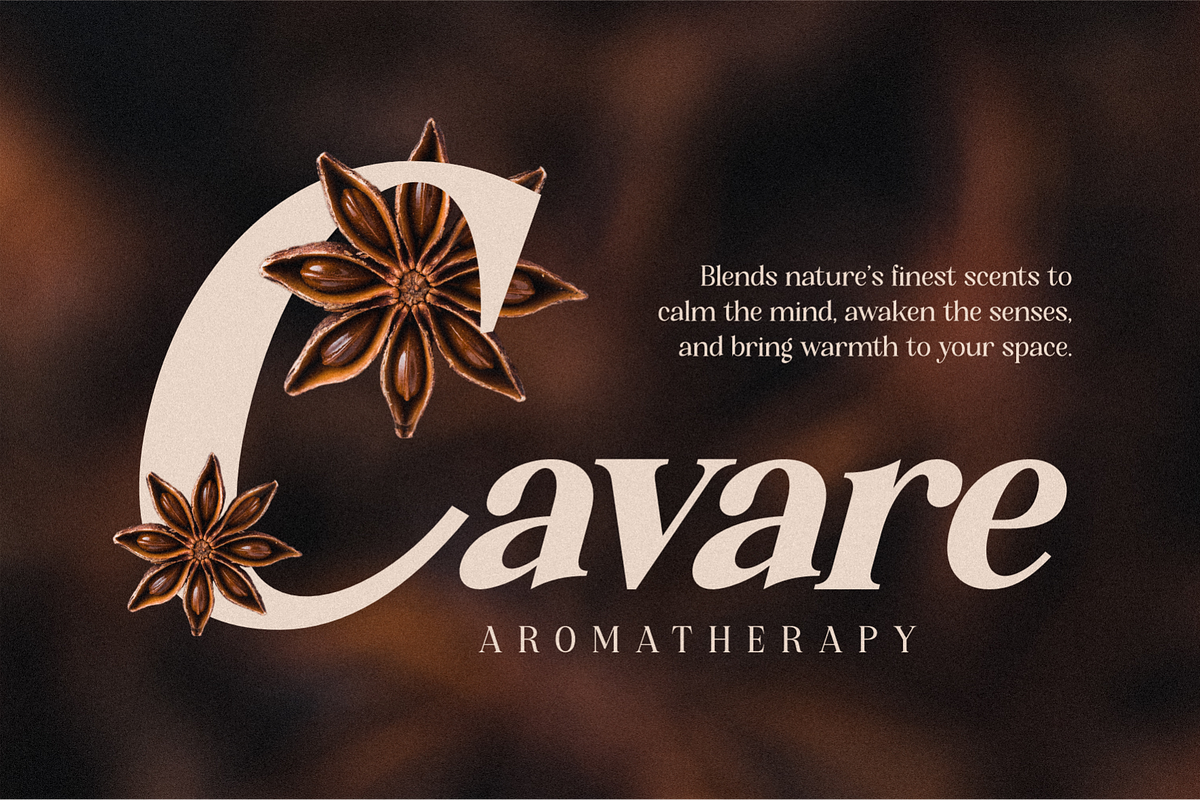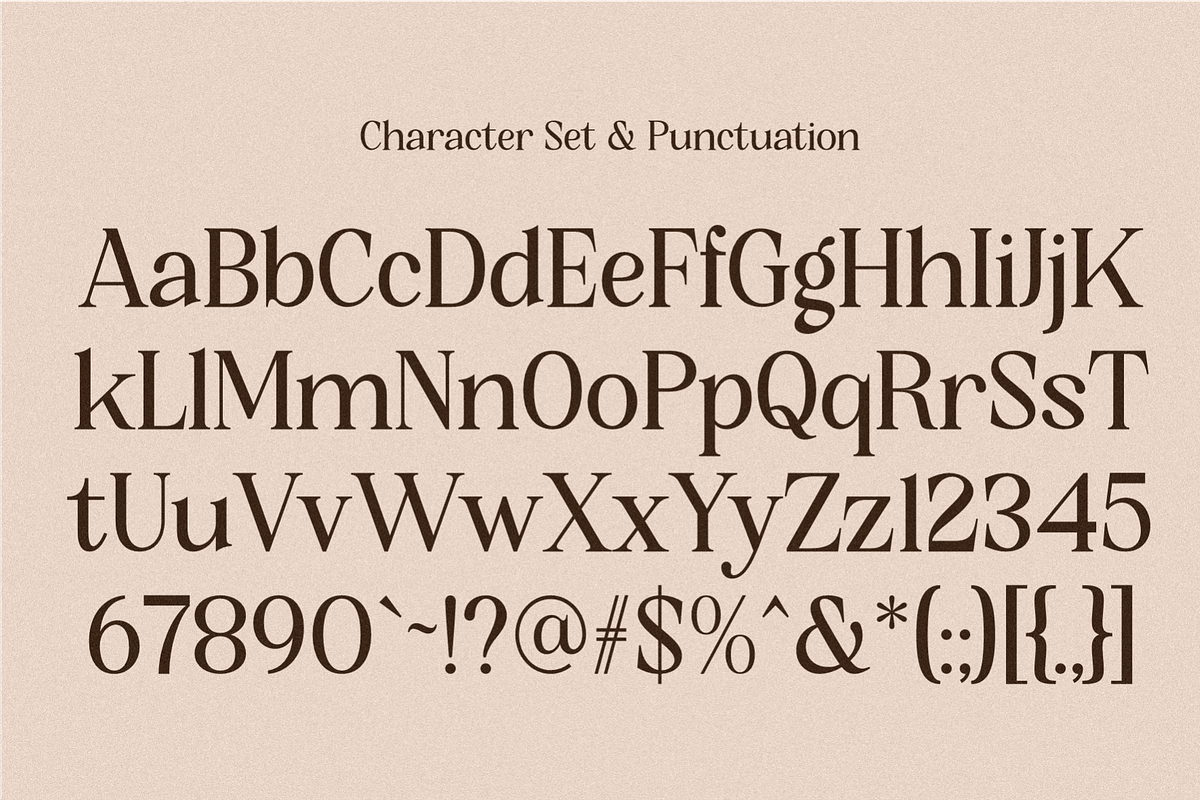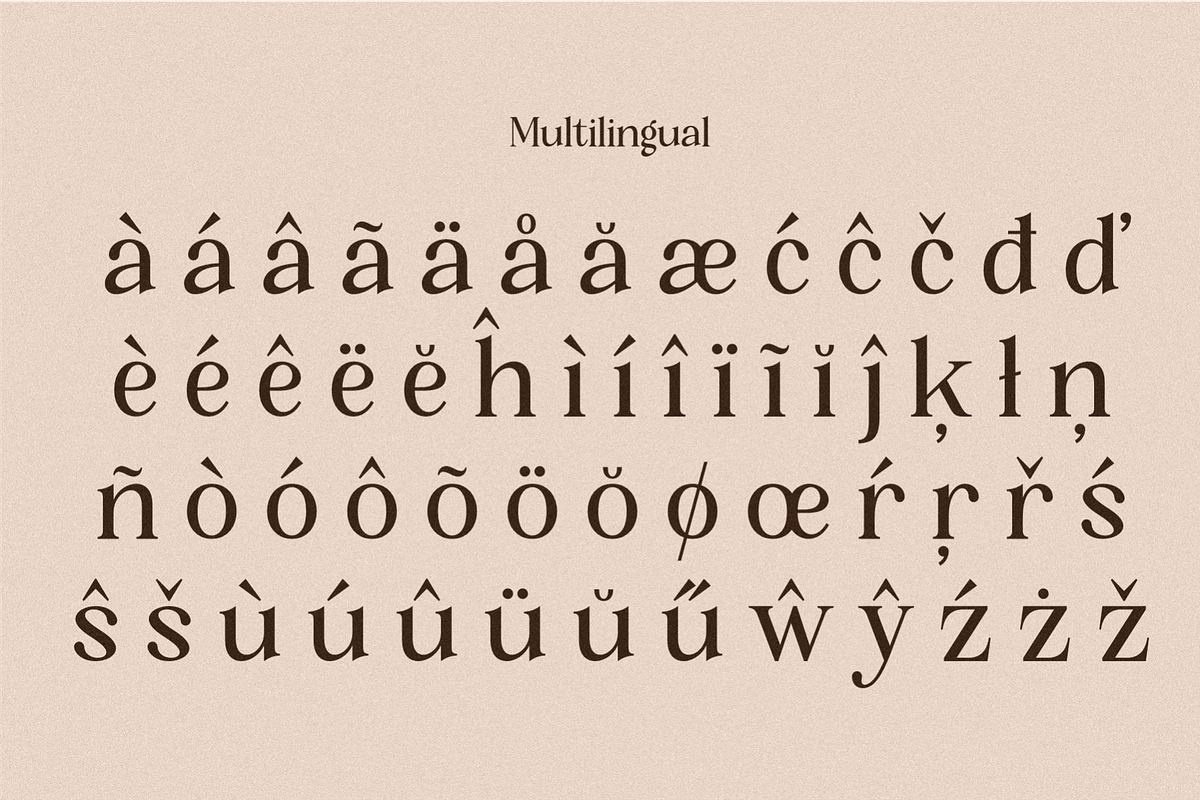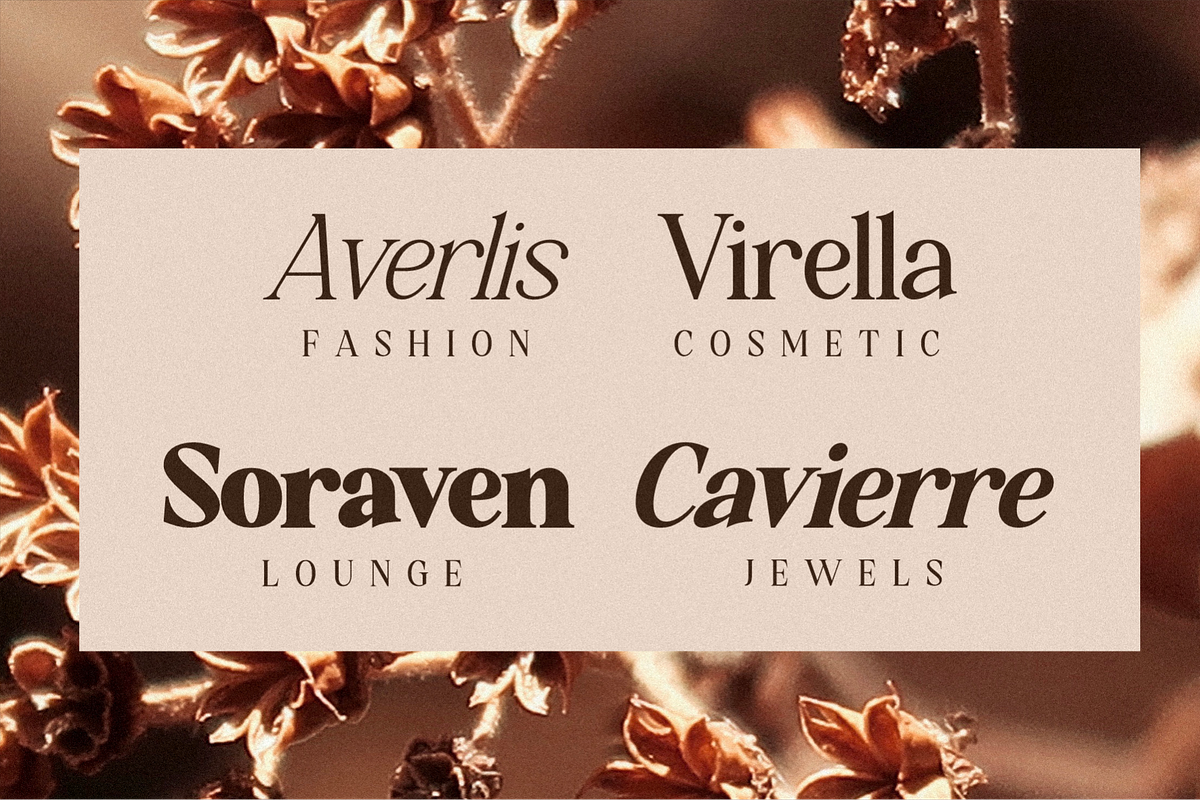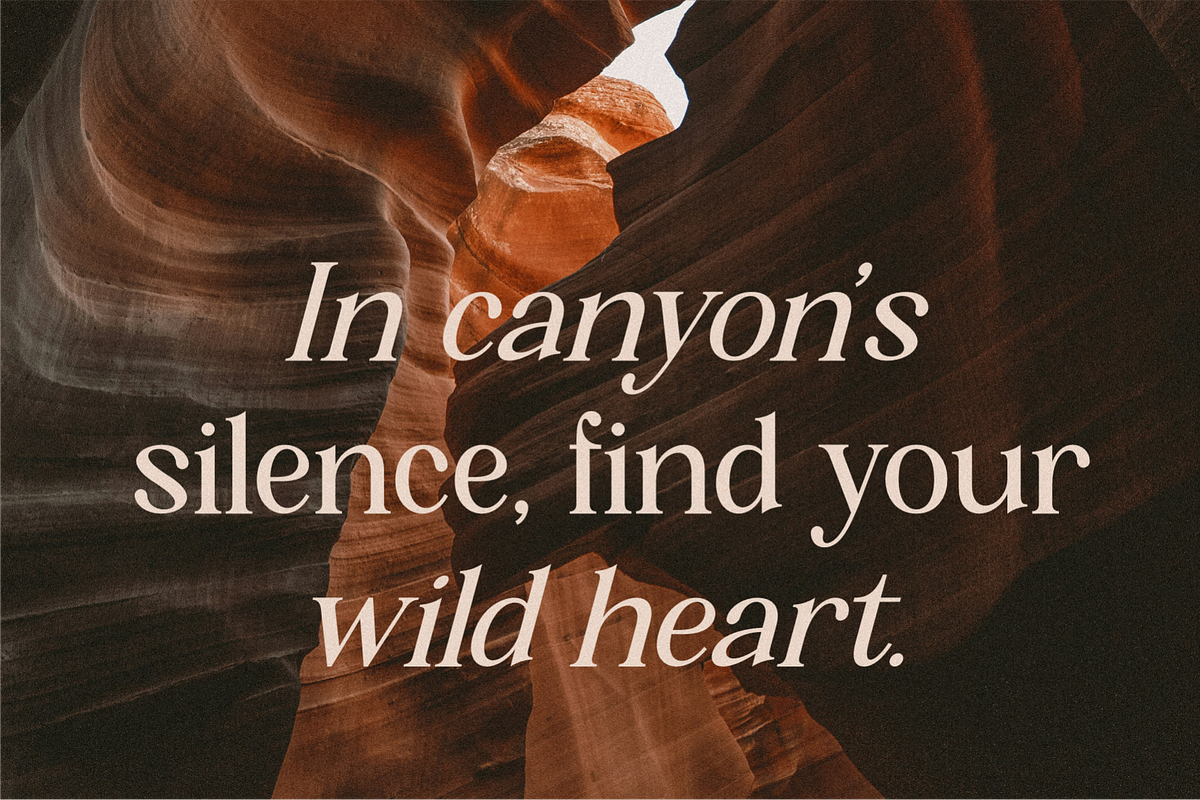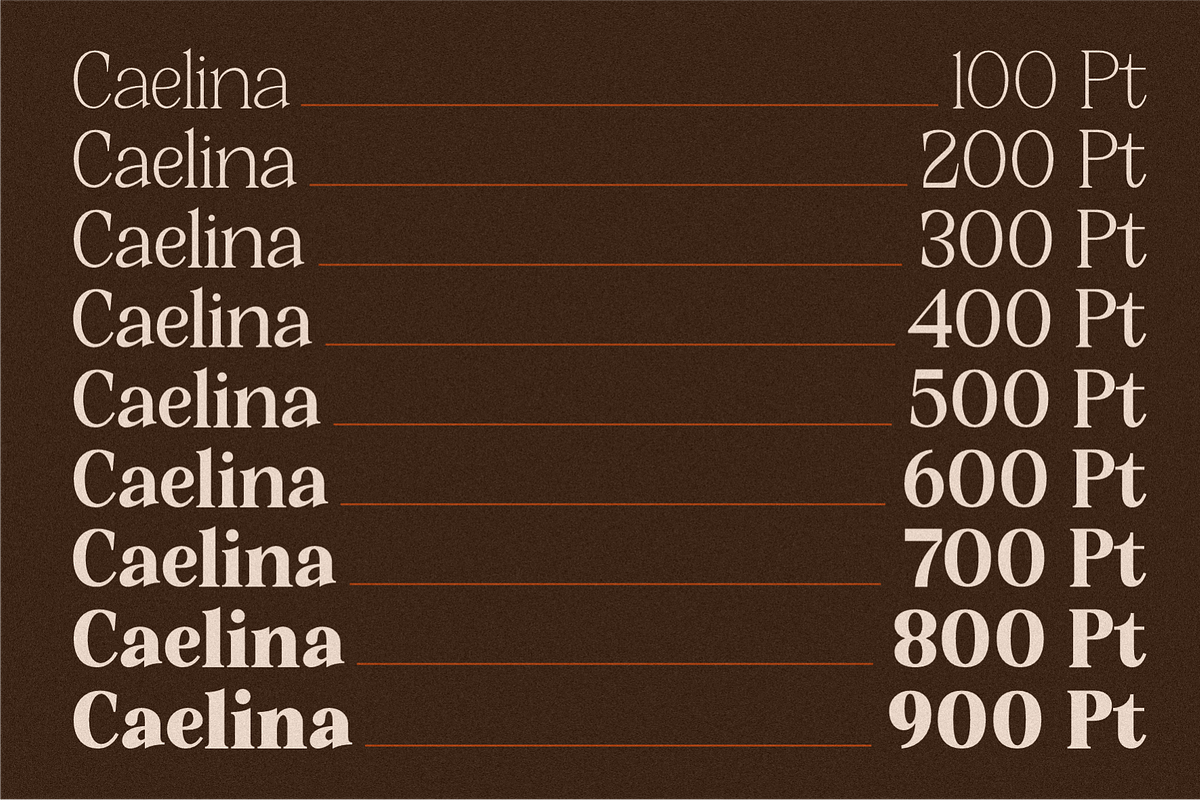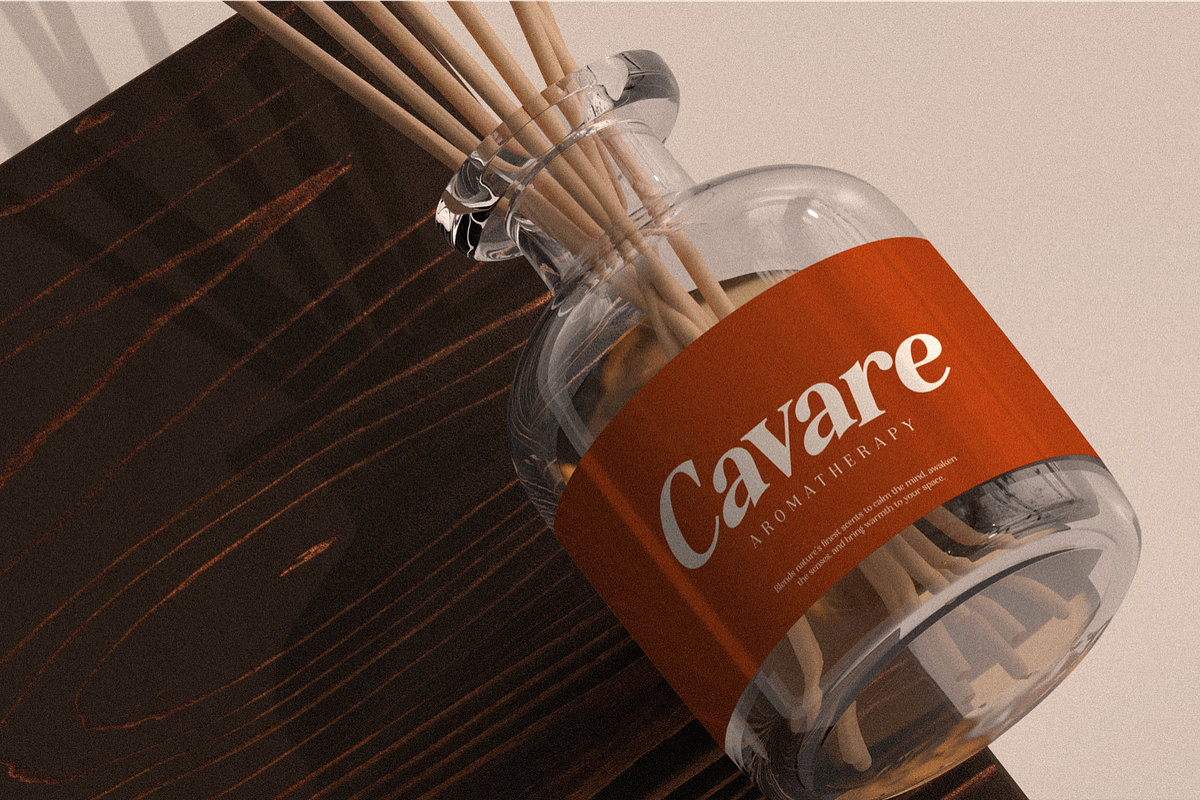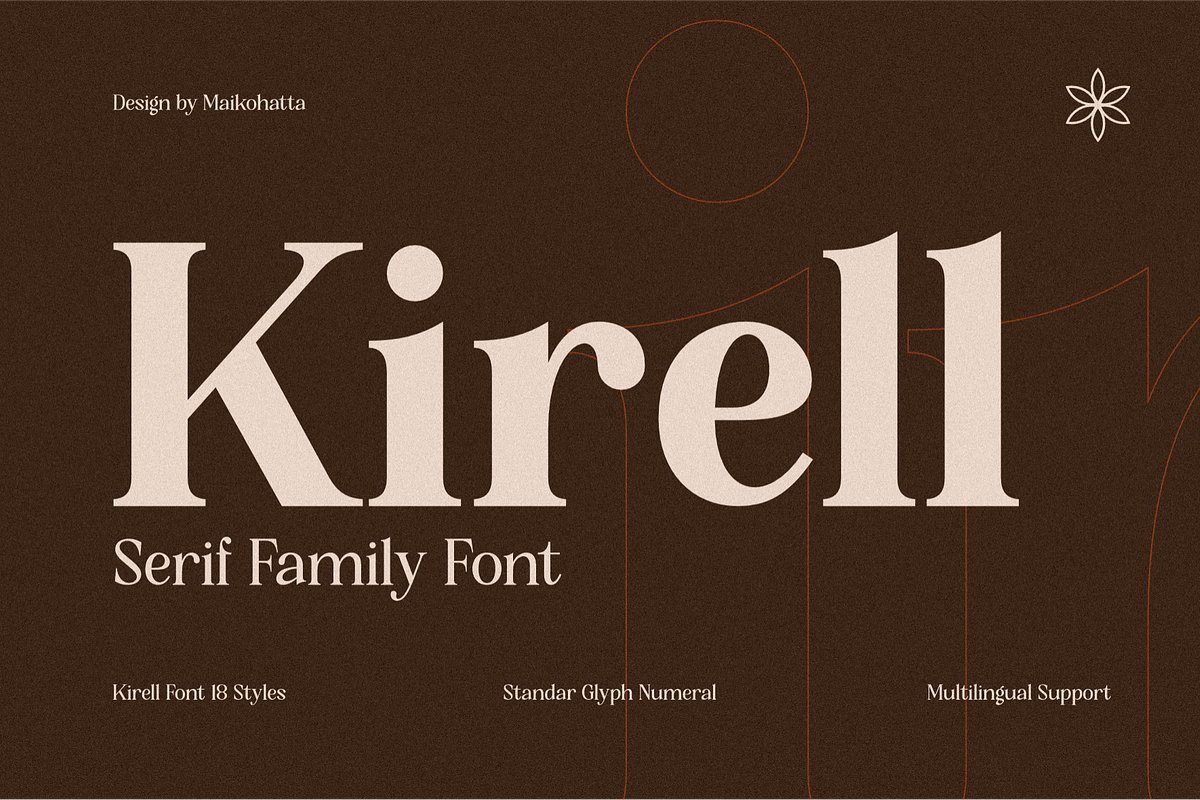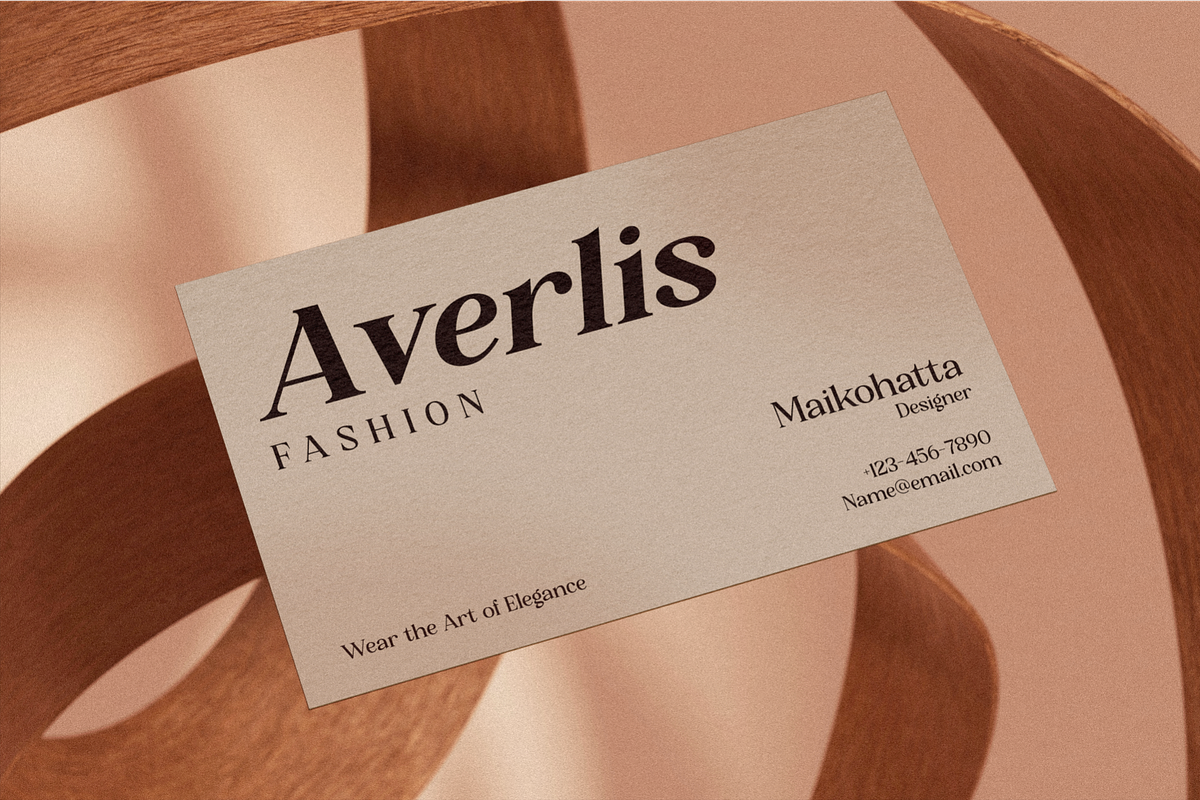
Kirell - Elegant Serif Family
Introducing New Family Serif Font Kirell Font Serif is a modern serif font family that blends timeless elegance with a touch of contemporary style. Designed with refined details, sharp serifs, and balanced proportions, Kirell brings sophistication and versatility to any design project.
With 18 styles ranging from thin to bold, it offers exceptional flexibility for branding, editorial layouts, packaging, logos, and web design. Its standard glyph numerals and multilingual support ensure seamless usability across various languages and design needs.
Perfect for those seeking a font that conveys professionalism and classic charm, Kirell delivers both readability and artistic character, making it a reliable choice for creative projects.